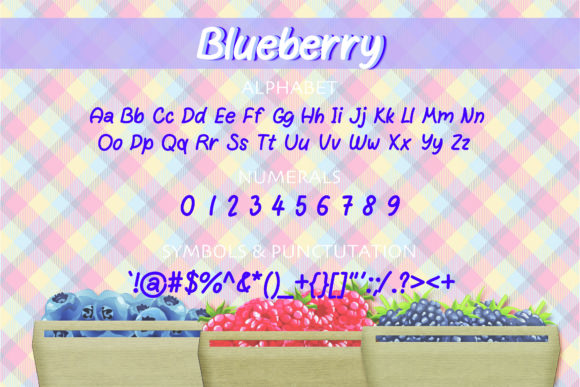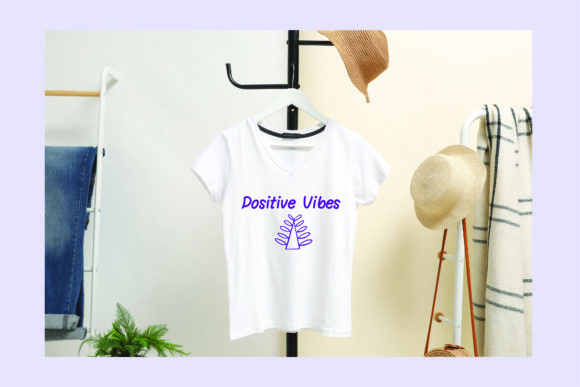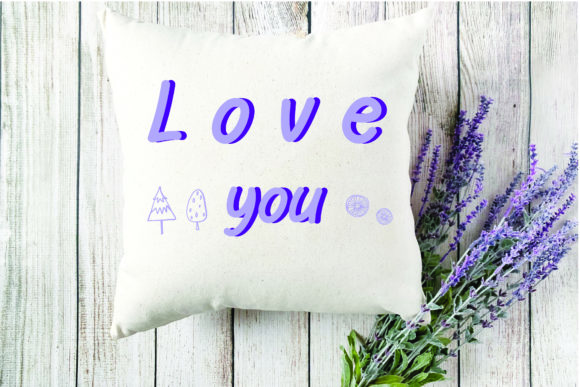
Discover the Sweet Taste of Creativity with Blueberry Font
Remember that moment when you stumbled upon the perfect font for your project? The one that made everything fall into place, and your design sparkled with new life? That’s exactly what happens when you find the right font, and Blueberry Font is one of those special finds.
Blueberry Font is a delightful, handwritten font that’s as flexible as it is charming. Its natural, unique style makes it the perfect fit for a wide range of designs, from whimsical illustrations to elegant invitations. Whether you’re a seasoned designer or just starting out, Blueberry Font is an excellent addition to your toolkit.
With its endless variations and playful charm, Blueberry Font is a valuable asset for any designer looking to add a personal touch to their work. So, why not have fun with this beautiful font and explore its many possibilities?
Blueberry Font Key Features
- Font Family: Blueberry Font is a sans-serif font family designed for digital use.
- Unique Characteristics: Features a modern, friendly, and approachable design with subtle rounded edges, making it suitable for user interface (UI) and user experience (UX) design.
Blueberry Font Review
When I first saw Blueberry Font, I was immediately drawn in by its unique and playful vibe ✨. The font has a whimsical feel to it, making it perfect for creative projects or anything that needs a touch of personality.
The font’s irregular shape and varied letterforms add a lot of character to the design, and the color options available allow you to customize it to fit your brand or aesthetic ✨. I particularly love how Blueberry Font can be used for headings and titles, as it really pops against the background ✨.
- ⚠️ Blueberry Font may not be the best choice for large blocks of text, as it can be a bit tiring to read.
- ⚠️ The font may not be suitable for formal or professional projects, as it has a more casual and playful feel.
- ⚠️ Some users may find the font a bit too bold or overpowering, especially in certain color combinations.
Overall, I think Blueberry Font is a great addition to any designer’s toolkit. While it may have some limitations, its unique character and versatility make it a great choice for the right projects ✨. Just be sure to use it thoughtfully and in moderation to get the best results.
Blueberry Font is ideal for:
- Creative projects, such as graphics and illustrations.
- Marketing materials, such as brochures and flyers.
- Personal projects, such as invitations and party decorations.
Remember to use Blueberry Font in moderation to avoid overwhelming your design.